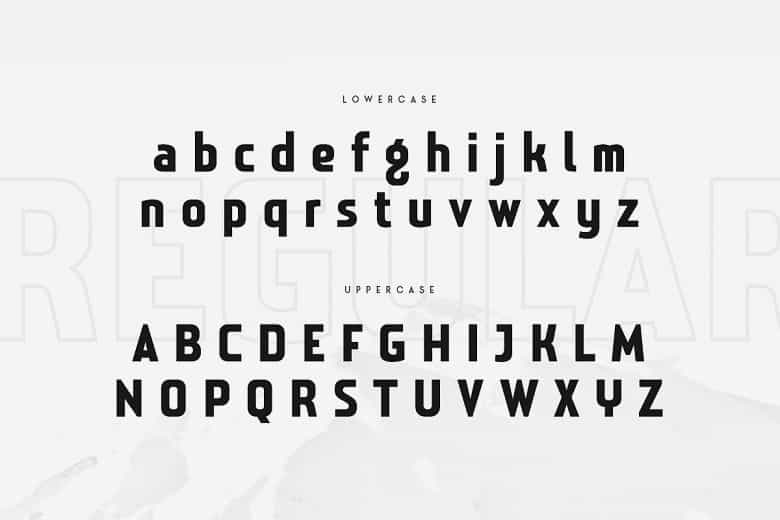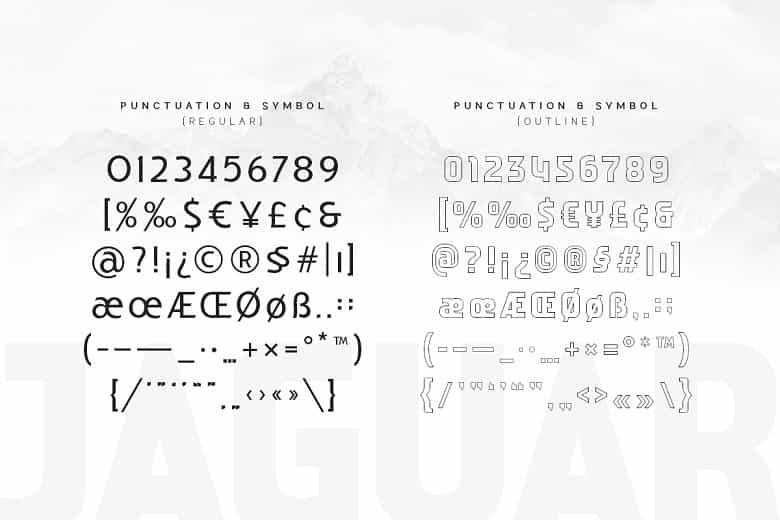
Jaguar is a new release of a sans serif font designed for use in sports and technology-related designs with contemporary look. New Sport font that we designed for the Modern branding purposes, with the Futuristic look that will enhance the value of your brand.